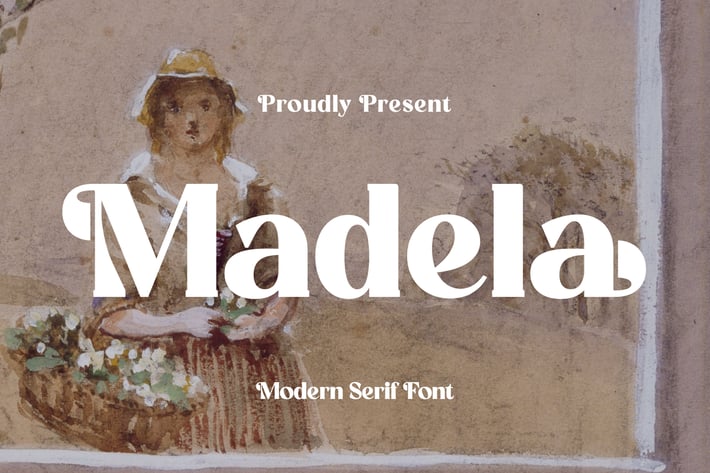
Madela Modern Serif Font
Madela Modern Serif Font is a refined modern serif font that balances bold shapes with soft, graceful details. Its unique letterforms blend classical elegance and contemporary minimalism, creating a timeless look suitable for both editorial and branding projects. Each stroke feels intentional and sophisticated, perfect for delivering high-end visual identity.
Stylish serif with a modern classic appeal
High contrast strokes for elegant readability
Works beautifully in both print and digital design
Editorial and magazine layouts
Luxury brand identities
Fashion and art posters
Product packaging
Invitations and stationery
* Social media branding
Classic beauty meets modern sophistication — Madela brings a graceful presence that elevates any design it touches.